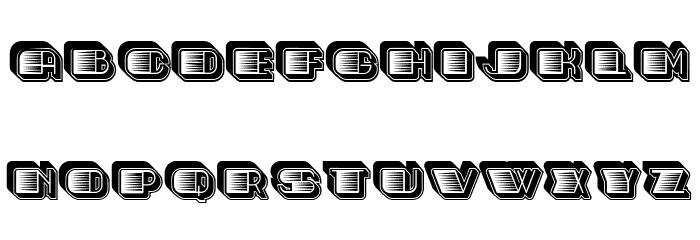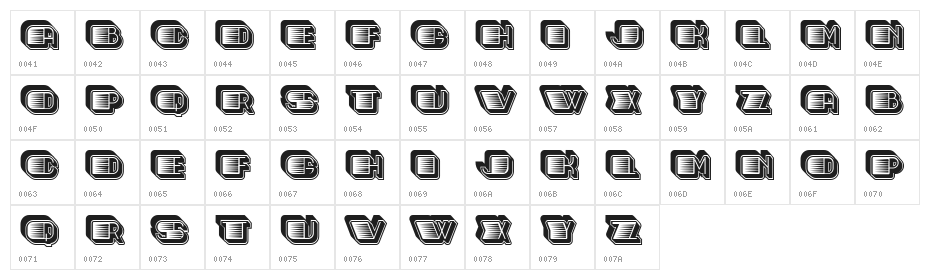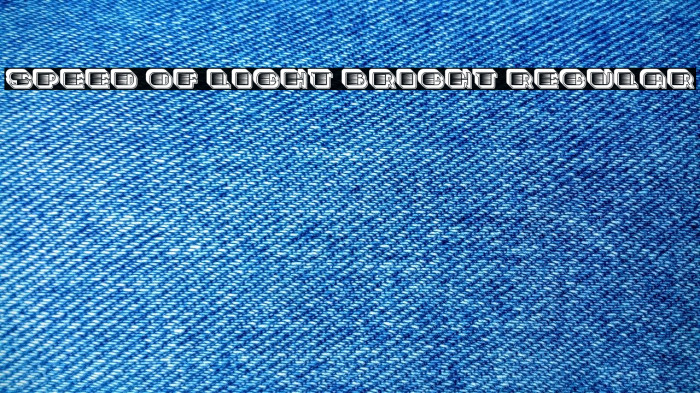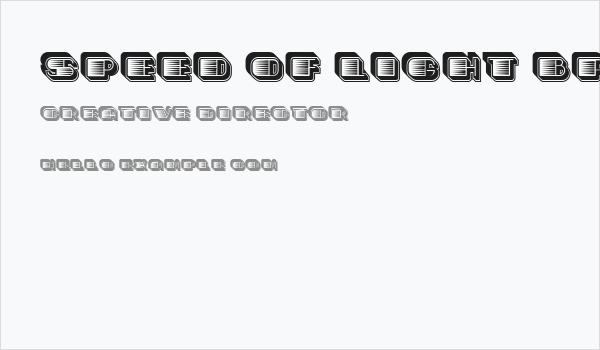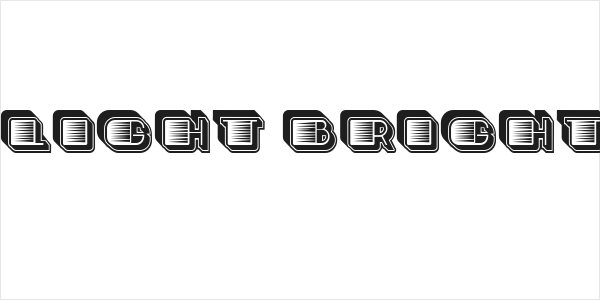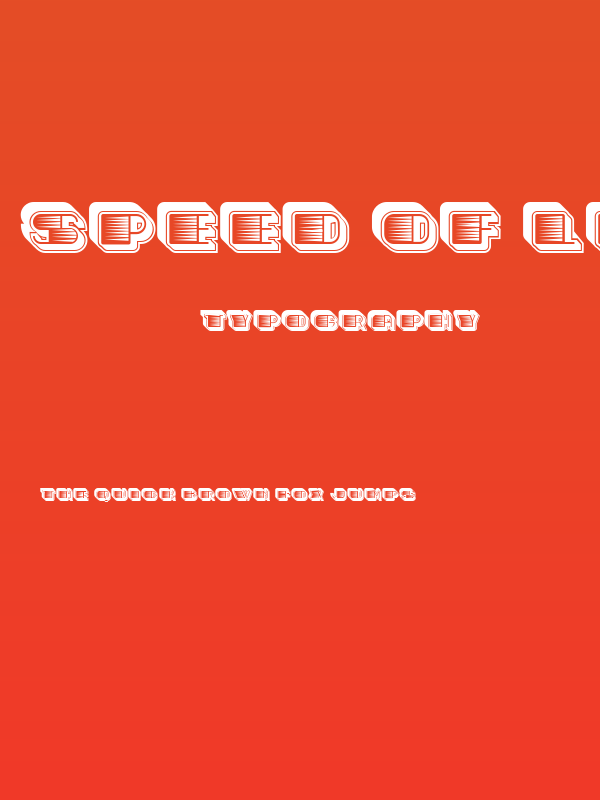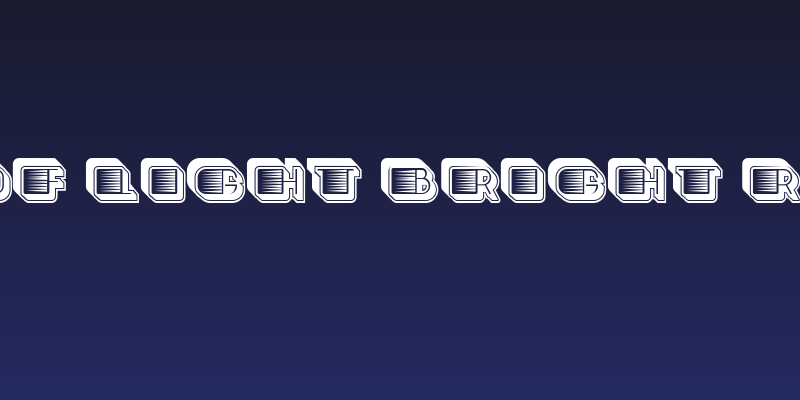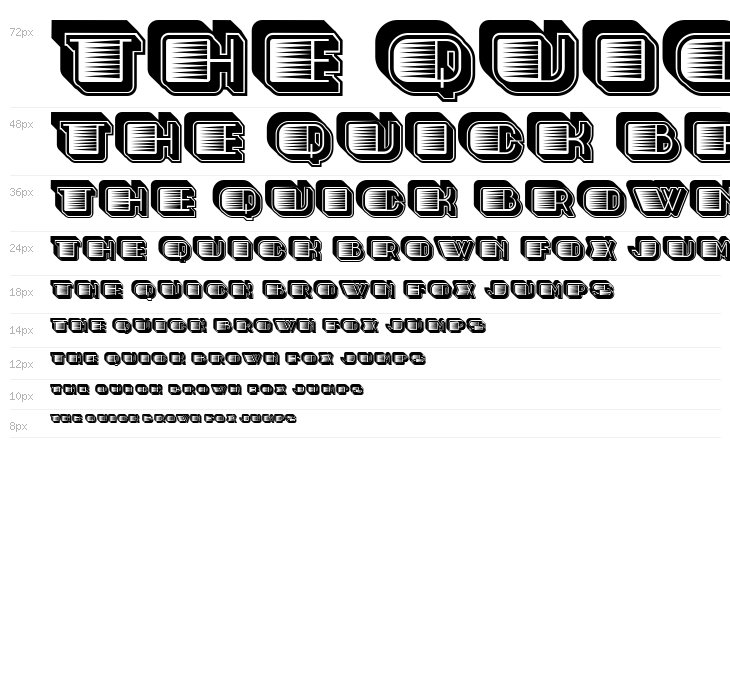
Speed of Light Bright Regular Font
Speed of Light Bright Regular Description
This font features a bold and futuristic design with a distinct 3D effect. Each character is outlined with a thick black border, creating a striking contrast against the inner lines that give a sense of depth and movement. The letters are blocky and geometric, with sharp angles and clean lines, evoking a sense of speed and modernity. The inner detailing consists of horizontal lines that add texture and a sense of dynamism. This font is ideal for projects that require a bold and eye-catching display, such as posters, headlines, and branding materials.
| Proposed Projects | Ideal for futuristic branding, tech-themed posters, and eye-catching headlines. |